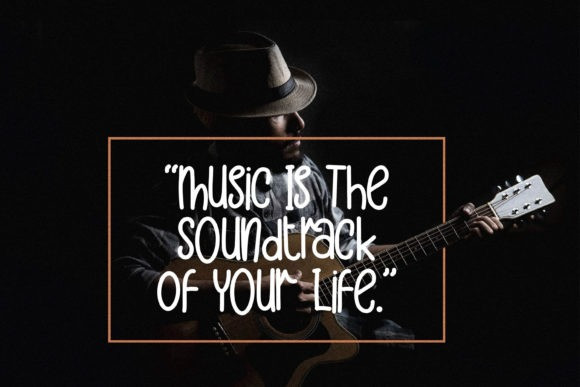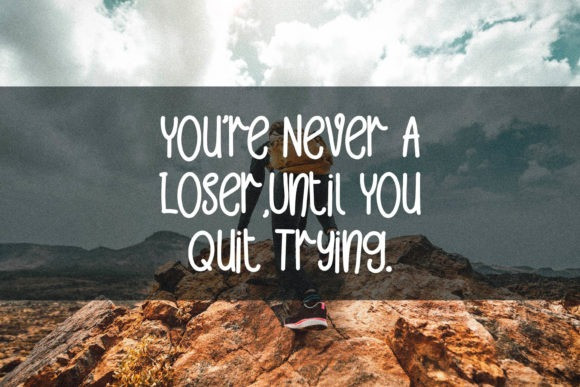
Shelbie Roger Display Font
Shelbie Roger is a distinct and assertive display font. It works incredibly well on branding, labels, commercials or posters. Add it confidently to your favorite creations and let yourself be amazed by the outcome generated.